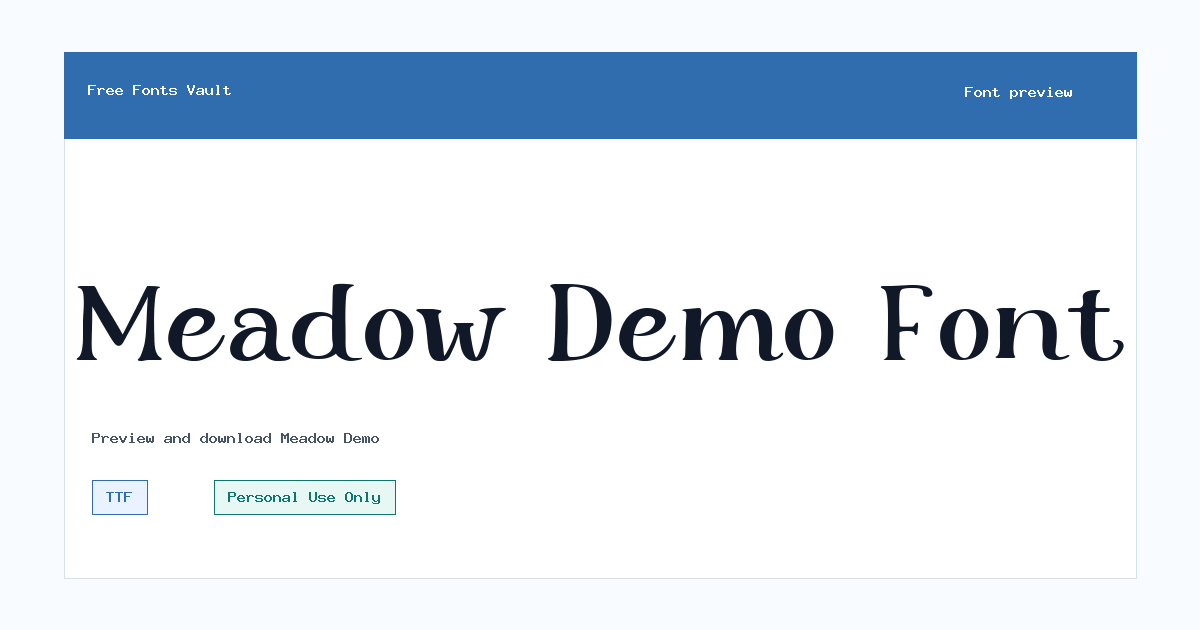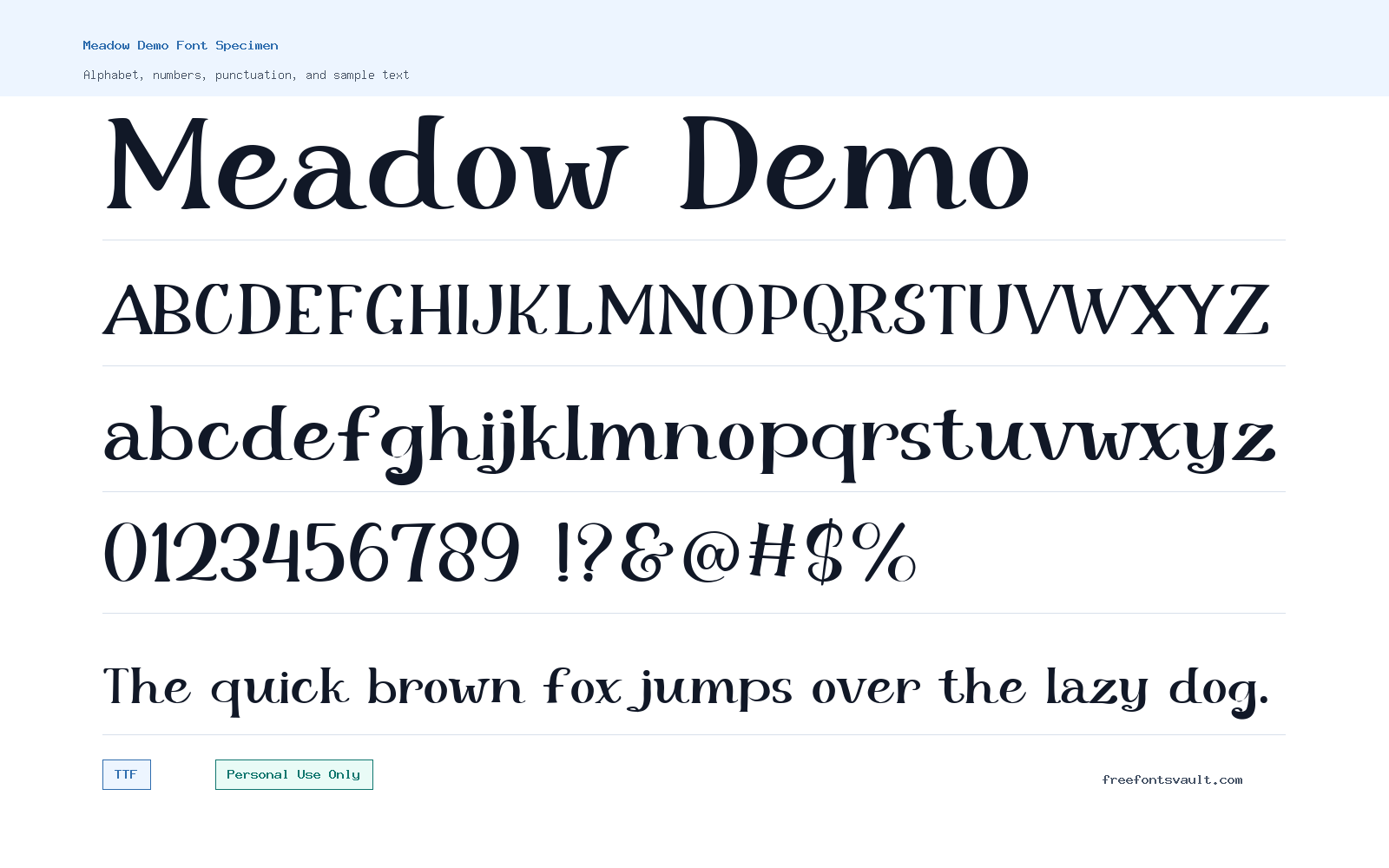
Meadow Demo
Meadow Demo font.
Meadow Demo is a decorative serif font with a soft, high-contrast look that works best when the words are meant to be noticed. Its regular TTF style is suited to short display text, title treatments, poster headings, and visual mockups where a graceful serif voice is more useful than a plain reading font.
About Meadow Demo
Meadow Demo has a refined display-serif shape with strong thick-to-thin contrast, rounded curves, and slightly playful details in letters such as the lowercase g, e, and w. The capitals feel tall and formal, while the lowercase letters add more movement. That mix makes the font useful for designs that need a polished but not overly stiff title style. It can work well for boutique-style graphics, invitation-style headings, packaging concepts, social posts, mood boards, and logo explorations where the text is short enough for the details to stand out.
Because this is a decorative serif, it should be tested at the actual size you plan to use. It looks strongest in larger text, where the curves and contrast remain clear. For long paragraphs, small captions, dense menus, or mobile UI text, a simpler serif or sans serif will usually be easier to read. If you are designing a poster, web mockup, or brand presentation, try Meadow Demo for the main name or headline, then pair it with a clean neutral sans serif for descriptions, buttons, dates, addresses, and other practical details. This keeps the design elegant without making every line compete for attention.
- Decorative high-contrast serif letterforms with smooth curves and expressive details
- Works best for short display text such as names, headings, poster titles, and logo drafts
- Posters, social media graphics, and quote layouts with short headlines
- Wedding, boutique, stationery, packaging, and editorial-style mockups
- Website hero titles or portfolio mockups when paired with a simpler body font
- Mood boards and presentation slides where a graceful serif title is needed
Use Meadow Demo where the font can be seen clearly: large headings, short names, title cards, and display graphics. For logo work, test the exact word you plan to use, because decorative serifs can change character depending on letter combinations. Check spacing around letters with strong curves or narrow joins, and adjust tracking if a word feels crowded. For posters and web mockups, use Meadow Demo for the main headline and choose a plain sans serif or quiet text serif for supporting copy. Avoid setting long paragraphs in this font, especially at small sizes, because the contrast and ornamental details can slow reading.
What kind of font is Meadow Demo?
Meadow Demo is a decorative serif display font. It has strong contrast between thick and thin strokes, smooth curves, and a graceful look that suits short titles and visual design work.
Is Meadow Demo good for body text?
It is better for display text than body copy. Use it for headings, names, and short phrases, then pair it with a simpler font for paragraphs and small details.
What should I pair with Meadow Demo?
Pair it with a clean sans serif or a very readable text serif. Keep Meadow Demo for the main title so its decorative details stay special and the rest of the layout remains easy to read.